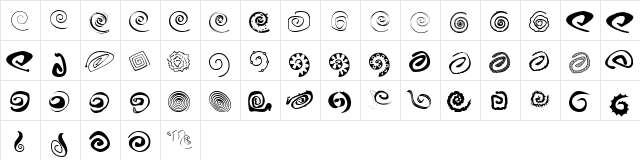
xspiralmental Regular
Design Context for xspiralmental Typeface
xspiralmental is a composed and adaptable typeface that performs quietly and consistently across a wide range of design contexts.